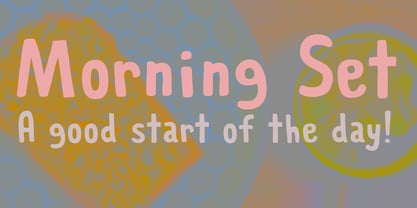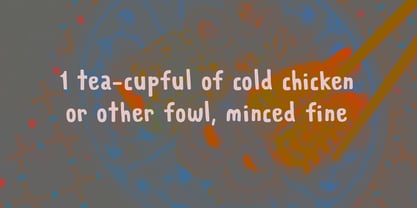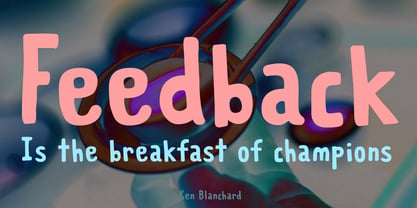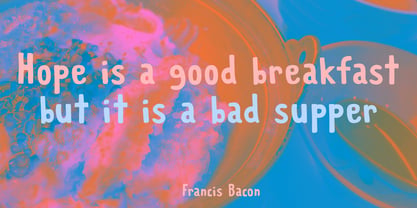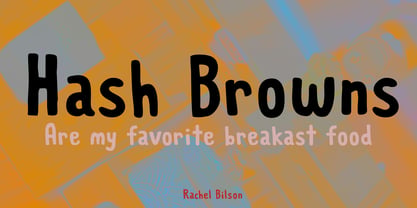
Morning Set
Die Schriftfamilie Morning Set wurde von David Kerkhoff entworfen und von Hanoded veröffentlicht. Morning Set enthält 2 Stile und Familienpaketoptionen. Mehr über diese Familie
In Japan, a ‘Morning Set’ is a set breakfast. You can find it in all the coffee houses and it is greatly appreciated by the throngs of salary-men, who need some fuel for the working day to come.
Morning Set is a handmade font. It actually is inspired by an old font of mine, called Rabbit On The Moon. Morning Set comes with a pre-packaged set of accented glyphs and a fresh look.
Hanoded is run by Dutchman David Kerkhoff. His fonts are a mishmash of styles, as he just creates whatever pops into his head. You will find a lot of brush fonts in his collection, as his favourite tools are brushes and Chinese ink, with cartoon style fonts and script fonts complementing his repertoire. Aside from making fonts, David occasionally guides tours in far-flung places, renovates his '30's house and tries reasoning with his wife and (teenage) kids. Not an easy task!